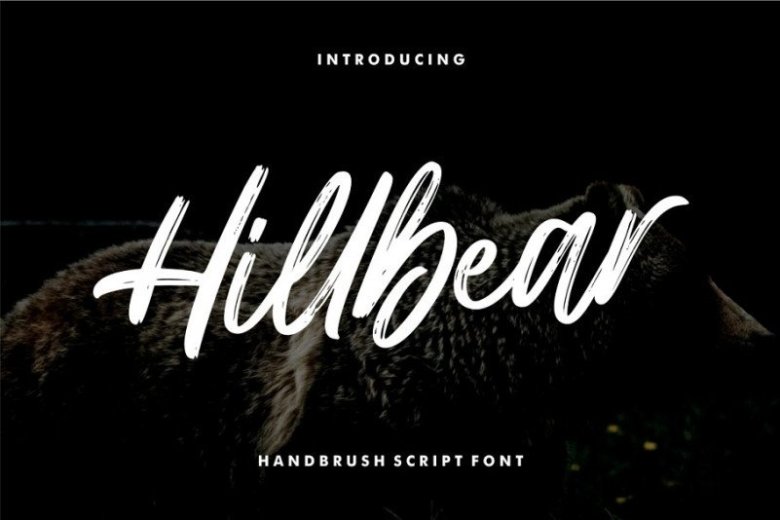
Hillbear Brush Font
Hillbear Font is a stylish, handwritten brush script font, it’s stylish and carefree + handcrafted with lots of love for your beautiful projects ♡. Hillbear Brush is a font script that has a brush stroke style with high quality font design. We are very careful in making this font, because we include casual, elegant, and artistic elements. This Font Template contains Modern, Creative, Professional and Unique Concept.